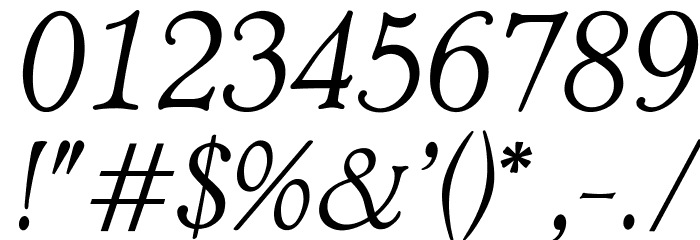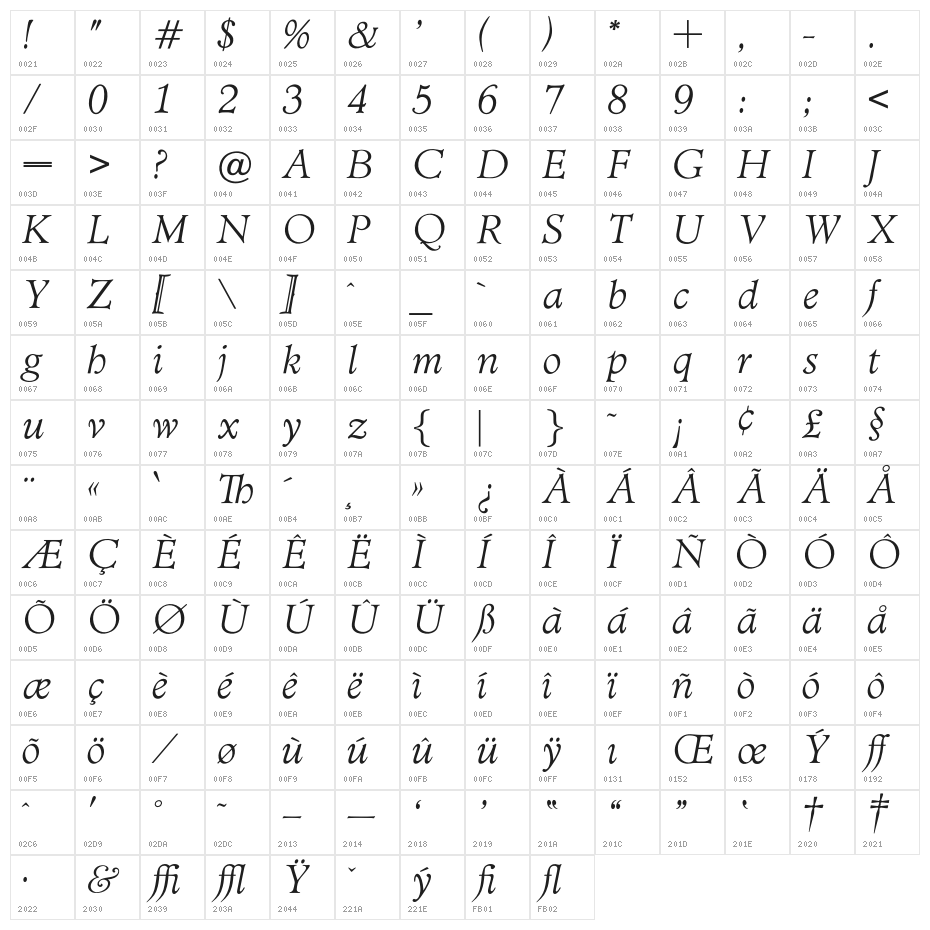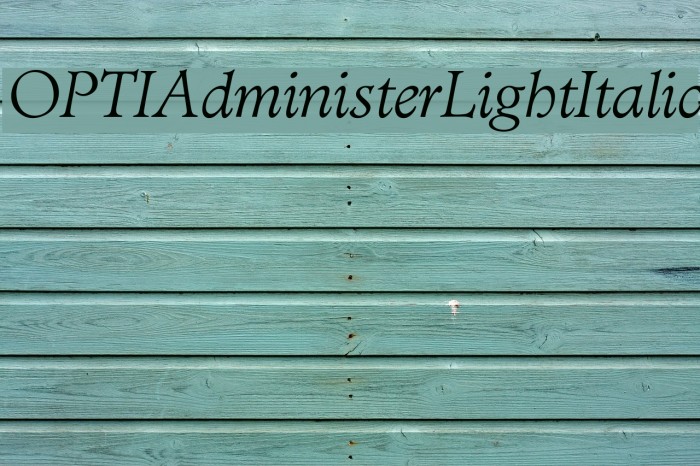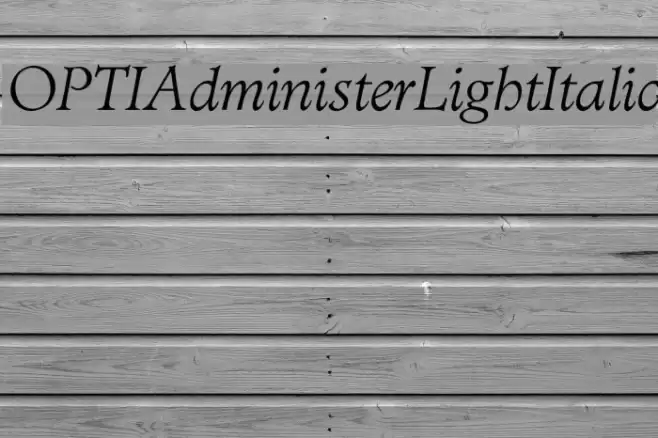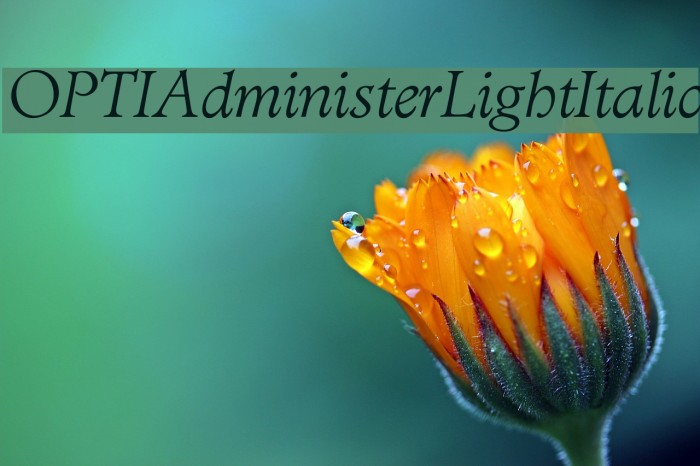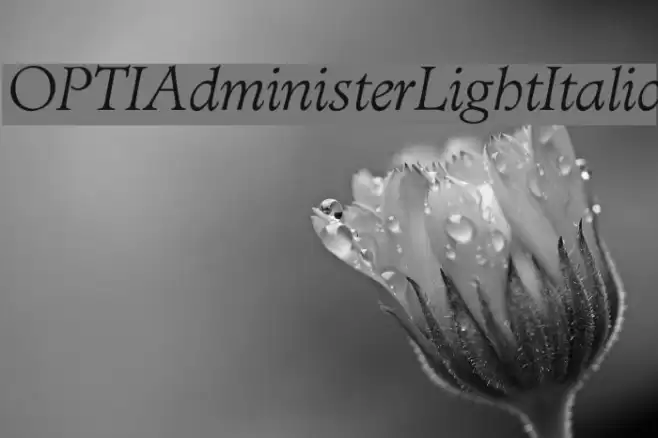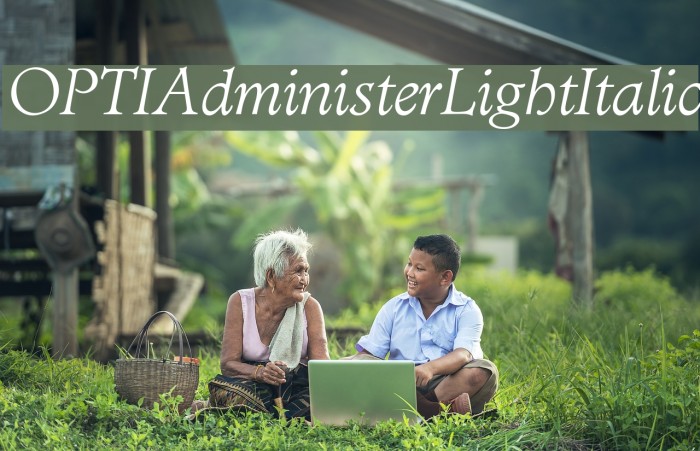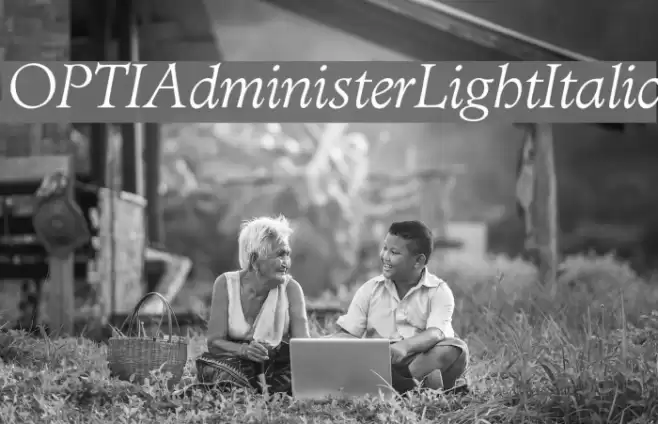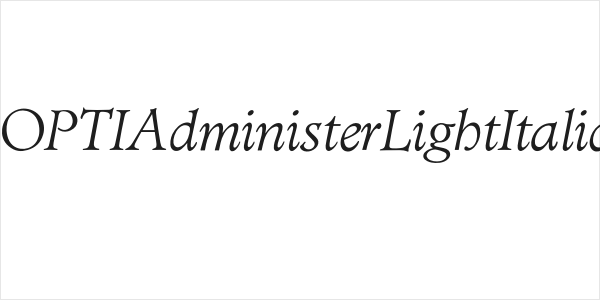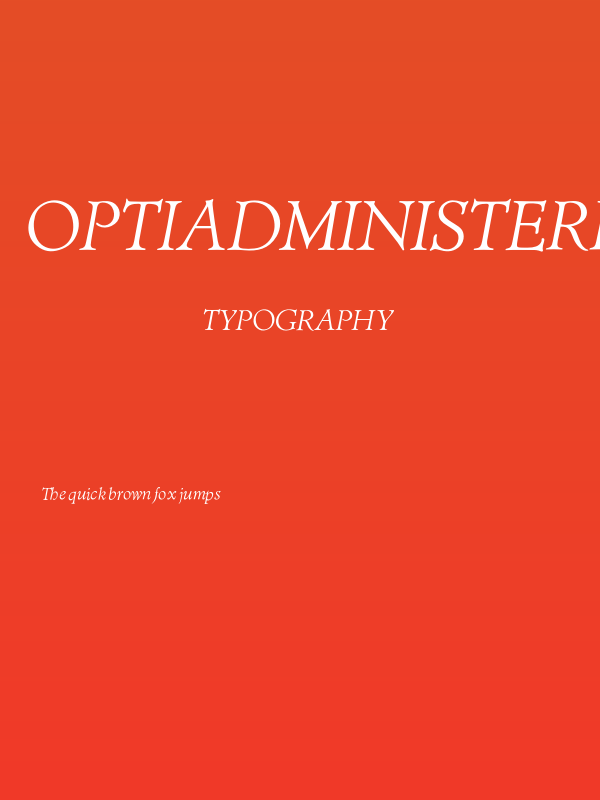
OPTIAdministerLightItalic Font
OPTIAdministerLightItalic Description
This font exhibits a refined and elegant style with a slight slant, indicative of its italic nature. The characters are gracefully elongated, providing a sense of sophistication and fluidity. The strokes are thin and consistent, contributing to a light appearance that enhances readability while maintaining a stylish aesthetic. The serif elements are subtle yet pronounced enough to add a classic touch, making it suitable for formal and professional settings. The numerals and special characters are designed with the same attention to detail, ensuring uniformity across all glyphs.
| Proposed Projects | Ideal for formal invitations, elegant branding, and editorial design. |